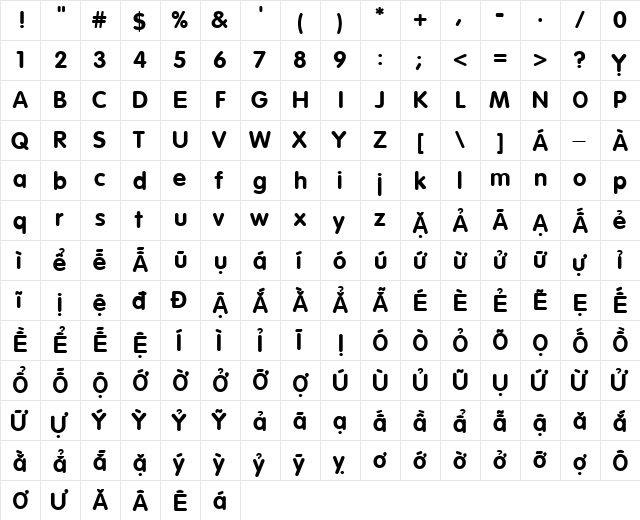
Vinhan Bold
Design Context for Vinhan Typeface
Vinhan takes a measured approach to typography — its balanced proportions and neutral character make it a reliable workhorse for both digital and print work. The heavy weight commands attention and anchors typographic hierarchies.